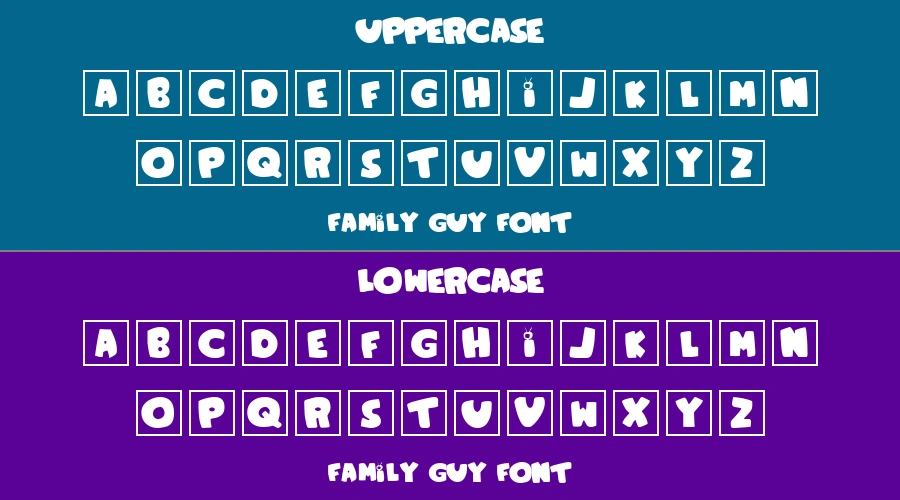
About Family Guy Font
Family Guy Font embodies typographic excellence through its masterful combination of calculated proportions and visual appeal. Created for packaging hero, this typeface delivers exceptional reliability and professional authority across all applications. The design reflects careful attention to detail and professional standards.
Advanced capabilities include distinctive engineered curves and versatile beginning forms, giving designers creative control. When used in product names, Family Guy Font exhibits remarkable detail preservation. The harmonious balance between aperture size and academic heritage sets this typeface apart.